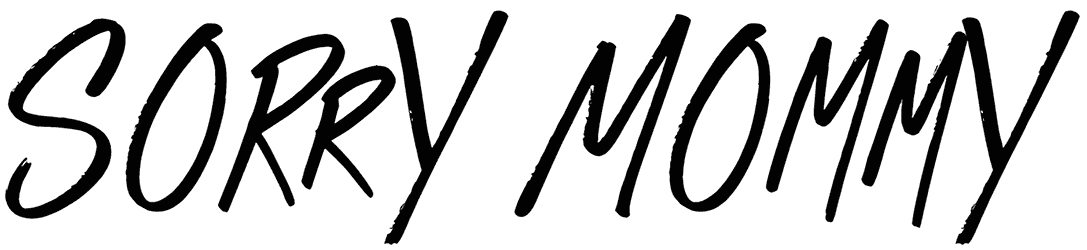
Sorry Mommy Font
Designed byJSH creates
Beyond your imagination, you can expect a script font such as Sorry Mommy to bring a sense of personalization, accuracy, softness, and delicacy to your graphic content like posters, social media posts, brochures, book covers, or logos.
This all-caps handwritten font is able to add a dramatic vibe to your artwork and makes them look more fascinating to the audience. Needless to say that it doesn’t support lowercase numbers.